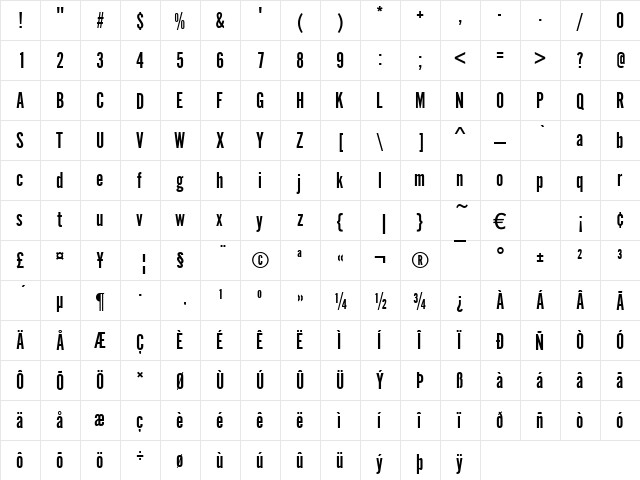
AlternateGotNo1D Regular
Design Context for AlternateGotNo1D Typeface
AlternateGotNo1D is a composed and adaptable typeface that performs quietly and consistently across a wide range of design contexts.